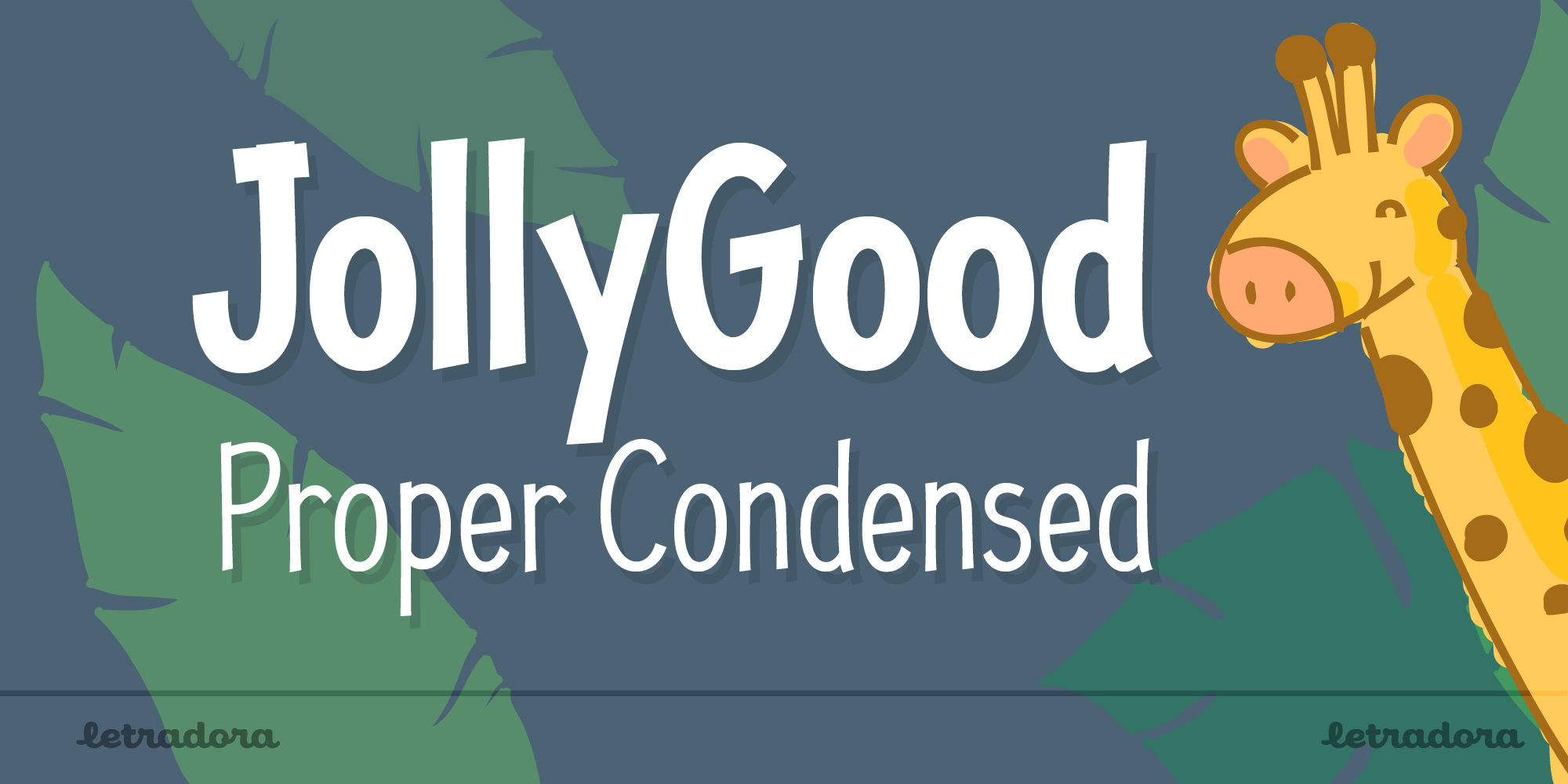
JollyGood Proper Condensed Font is perfect for space-efficient headline designs, compact poster layouts, narrow magazine columns, condensed logo designs, vertical signage displays, efficient packaging labels, streamlined app interfaces, tight editorial layouts, optimized web headers, dense information graphics, space-saving business cards, and economical advertising materials.
What makes JollyGood Proper Condensed Font so exciting is its brilliant space optimization and vertical elegance that perfectly solves the challenge of fitting maximum impact into minimal horizontal space. This ingenious typeface features tall, narrow letterforms with refined proportions and excellent readability that maintains visual clarity even in condensed formats, making it ideal for projects that need to communicate effectively within space constraints while preserving professional appearance and typographic sophistication.
The JollyGood Proper Condensed Font family typically includes multiple weight variations with consistent condensed proportions, optimized character spacing, and carefully balanced vertical emphasis that ensures excellent legibility across all space-conscious design applications.
Whether you're designing compact promotional materials or creating efficient digital interfaces, JollyGood Proper Condensed Font Free Download delivers the perfect typography solution for projects requiring maximum content in minimum space. This versatile font masterfully combines space efficiency with visual appeal, making it an essential resource for designers working on projects with tight spatial requirements that still demand professional presentation, clear communication, and the sophisticated appearance that condensed typography can uniquely provide in modern design contexts.